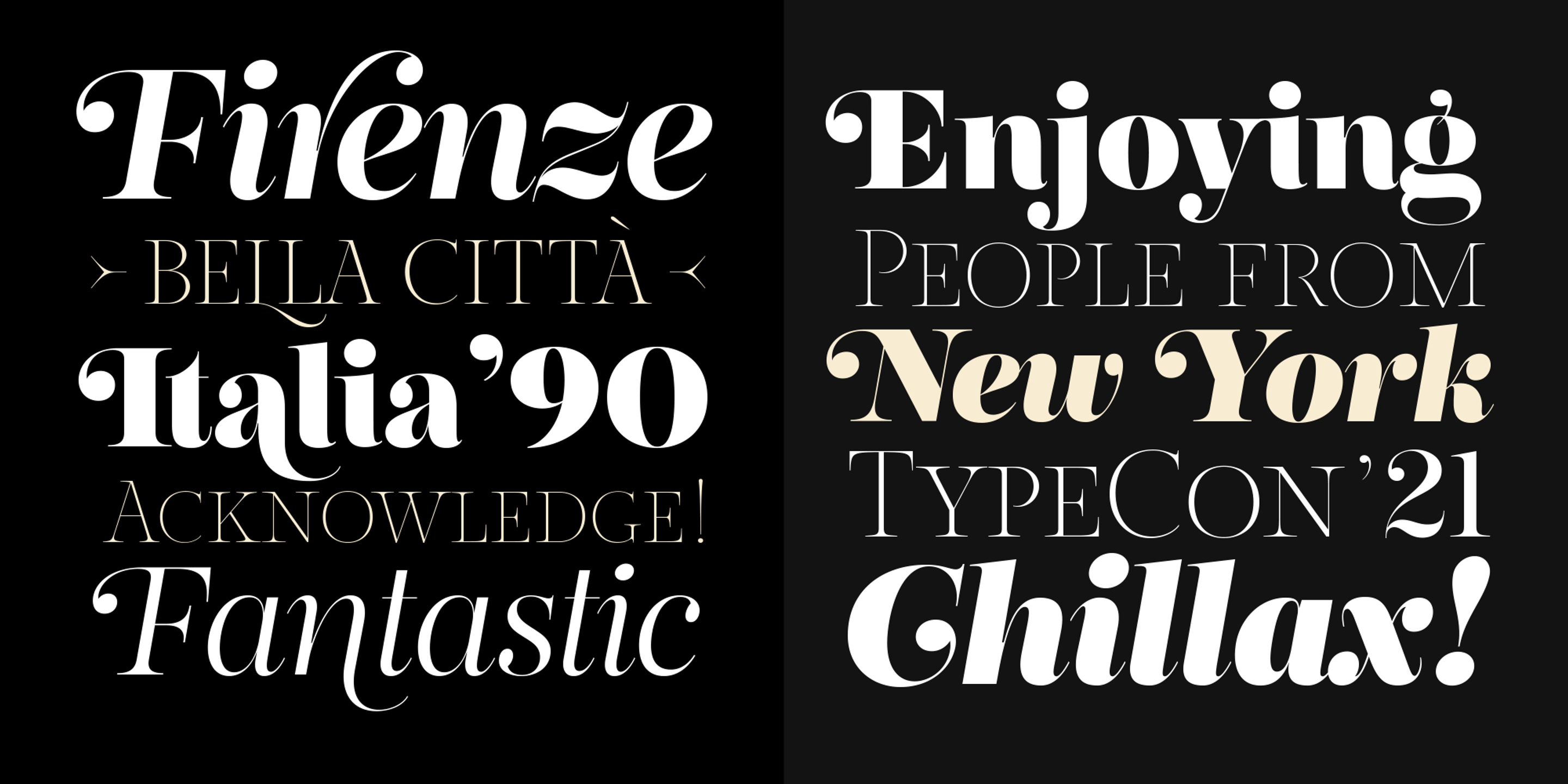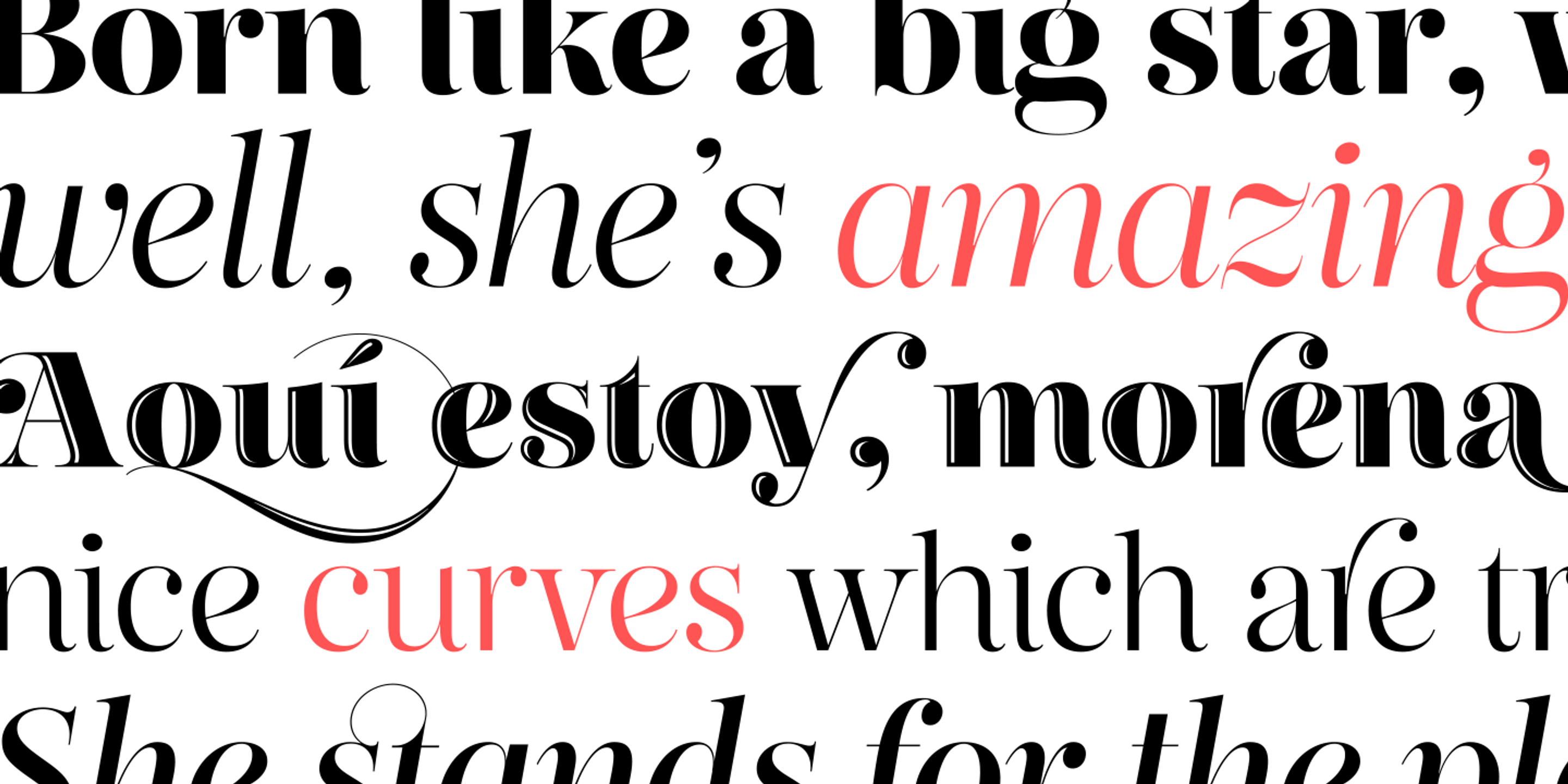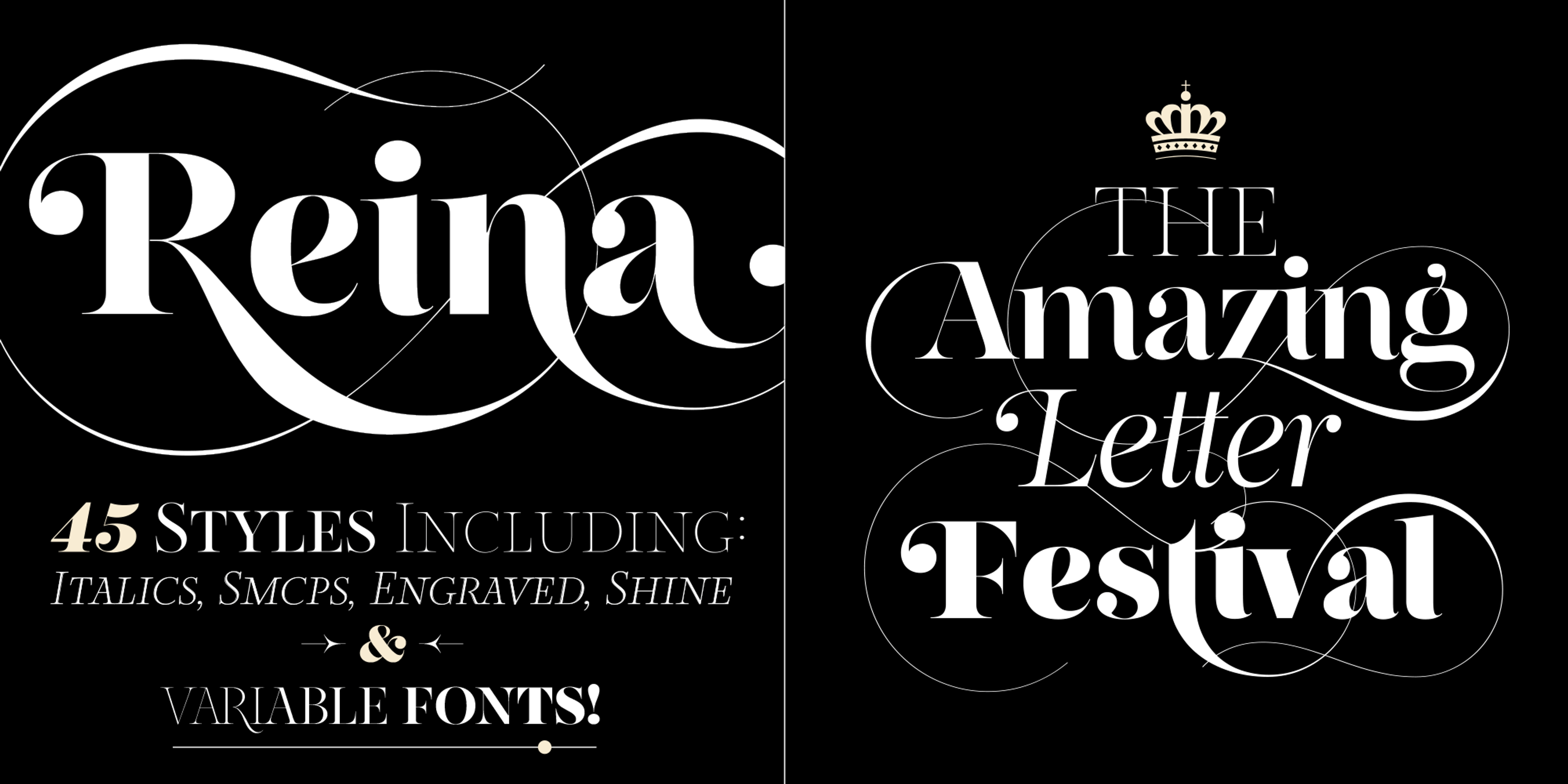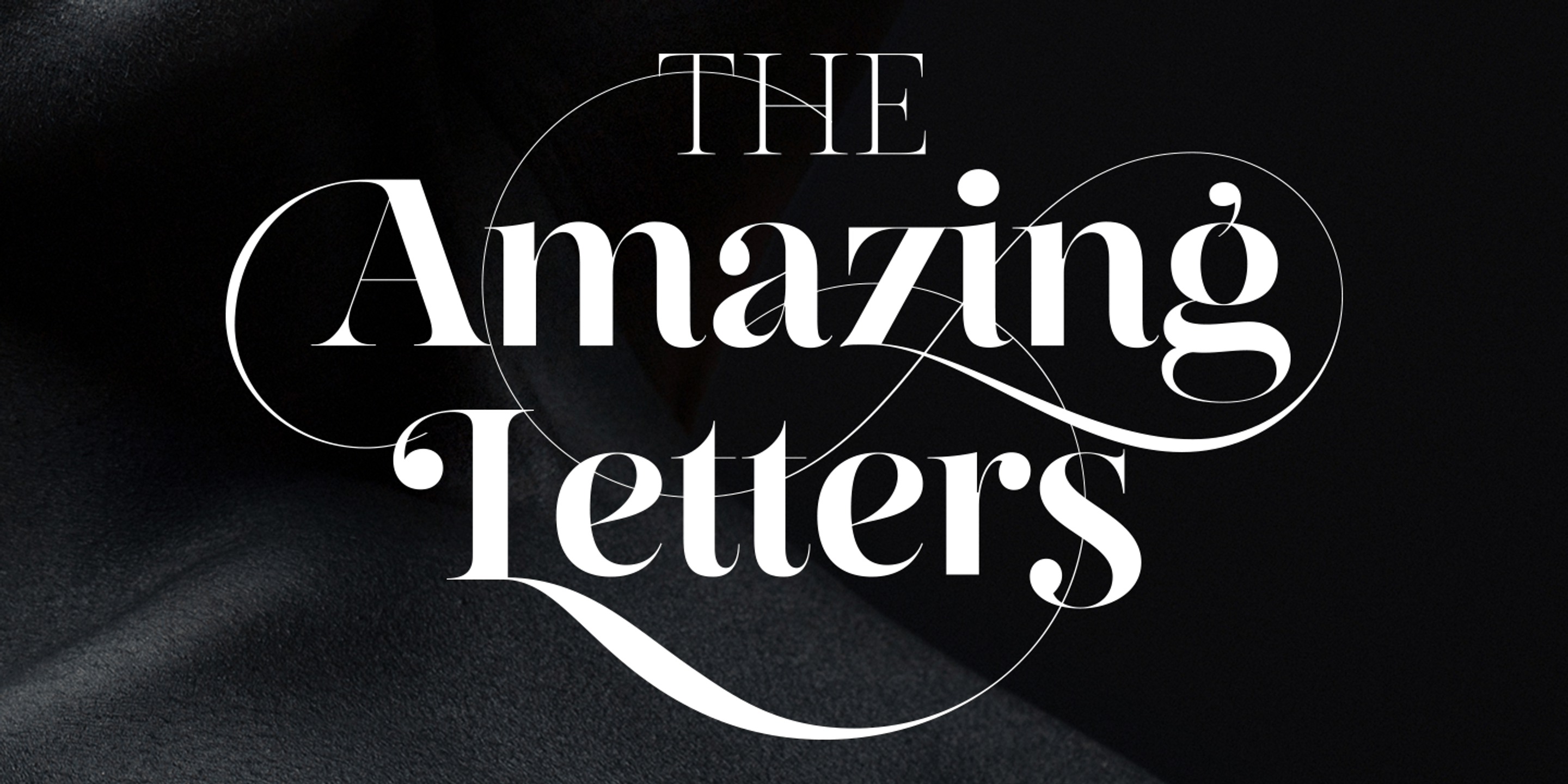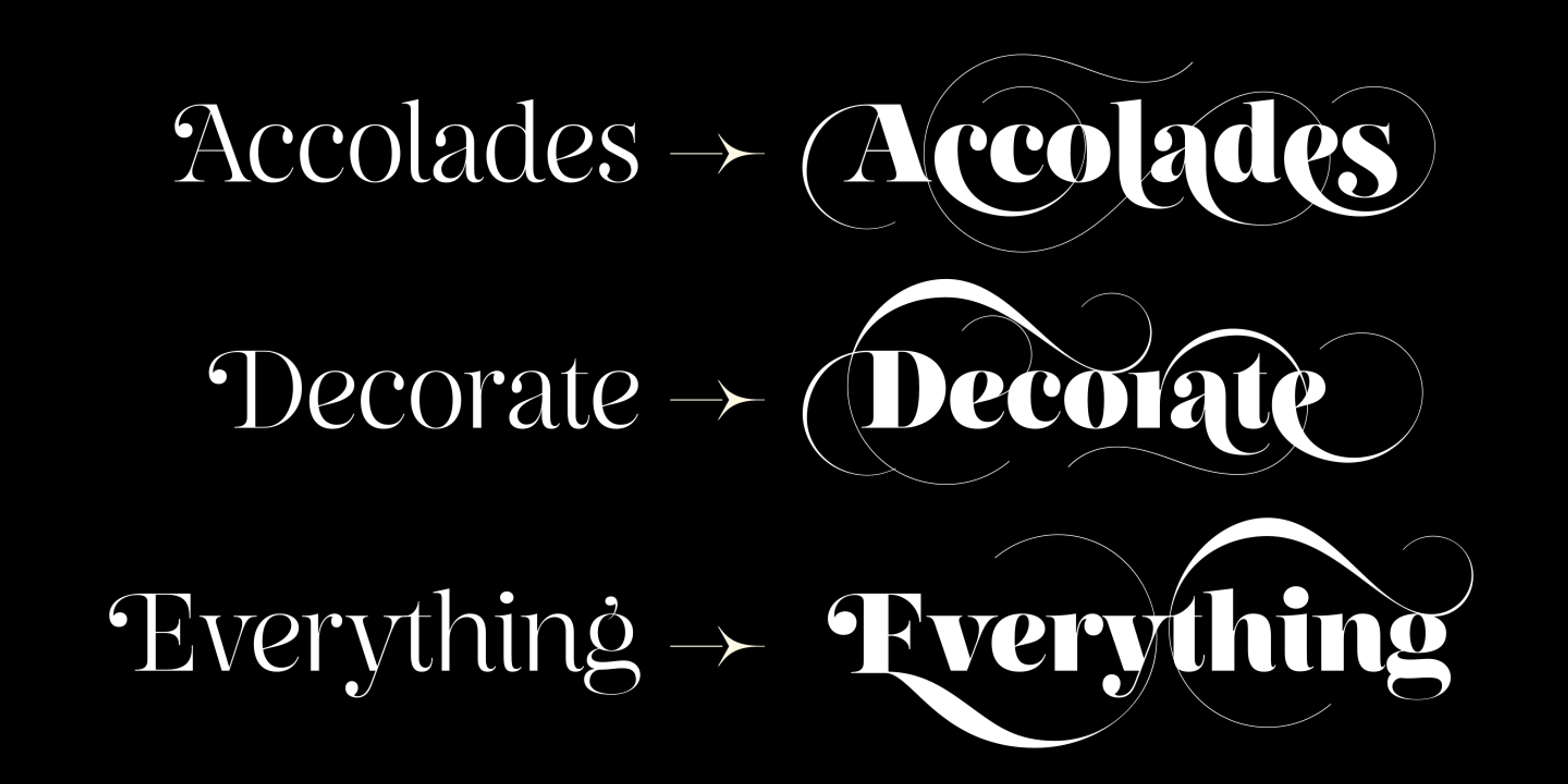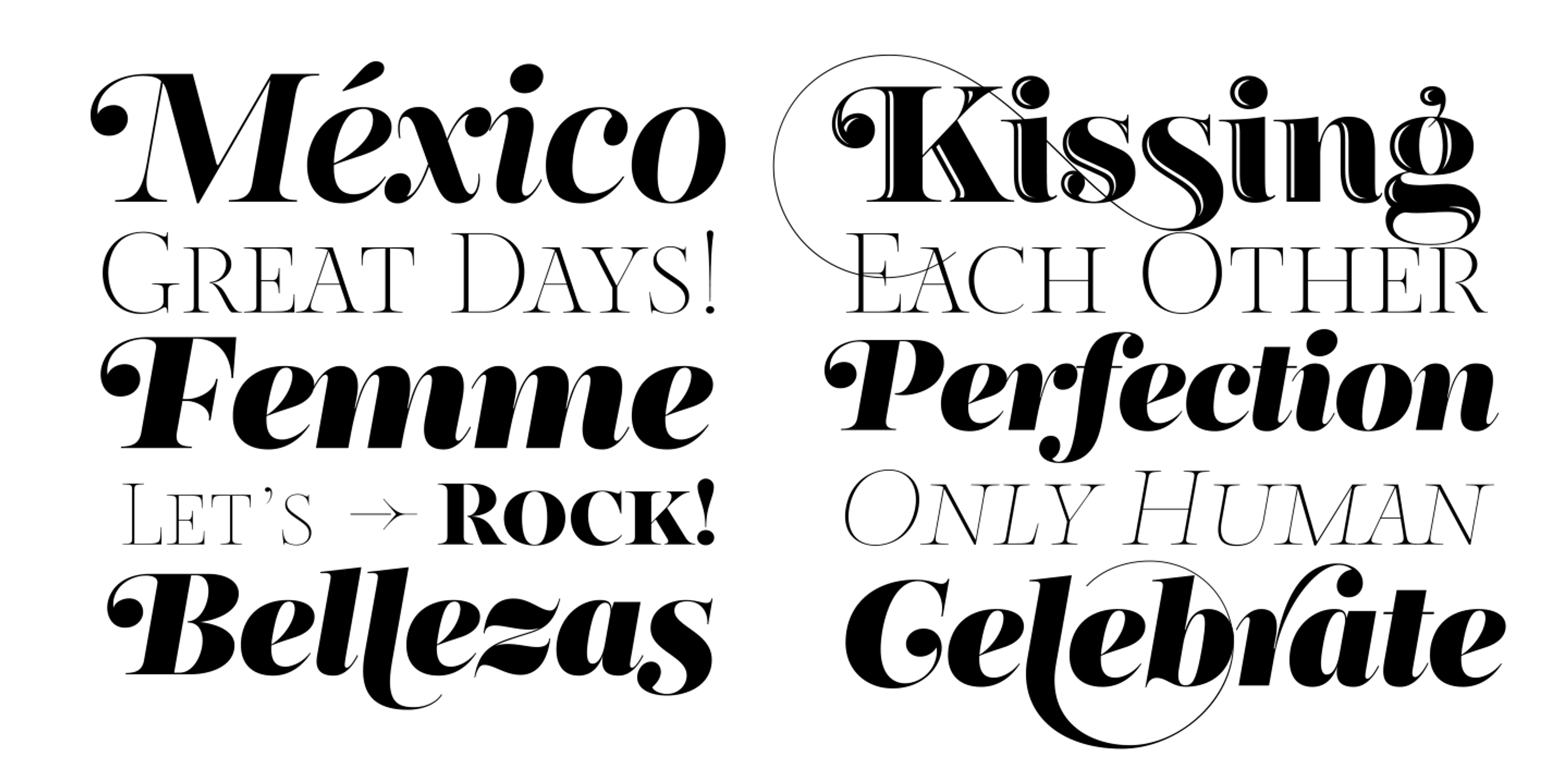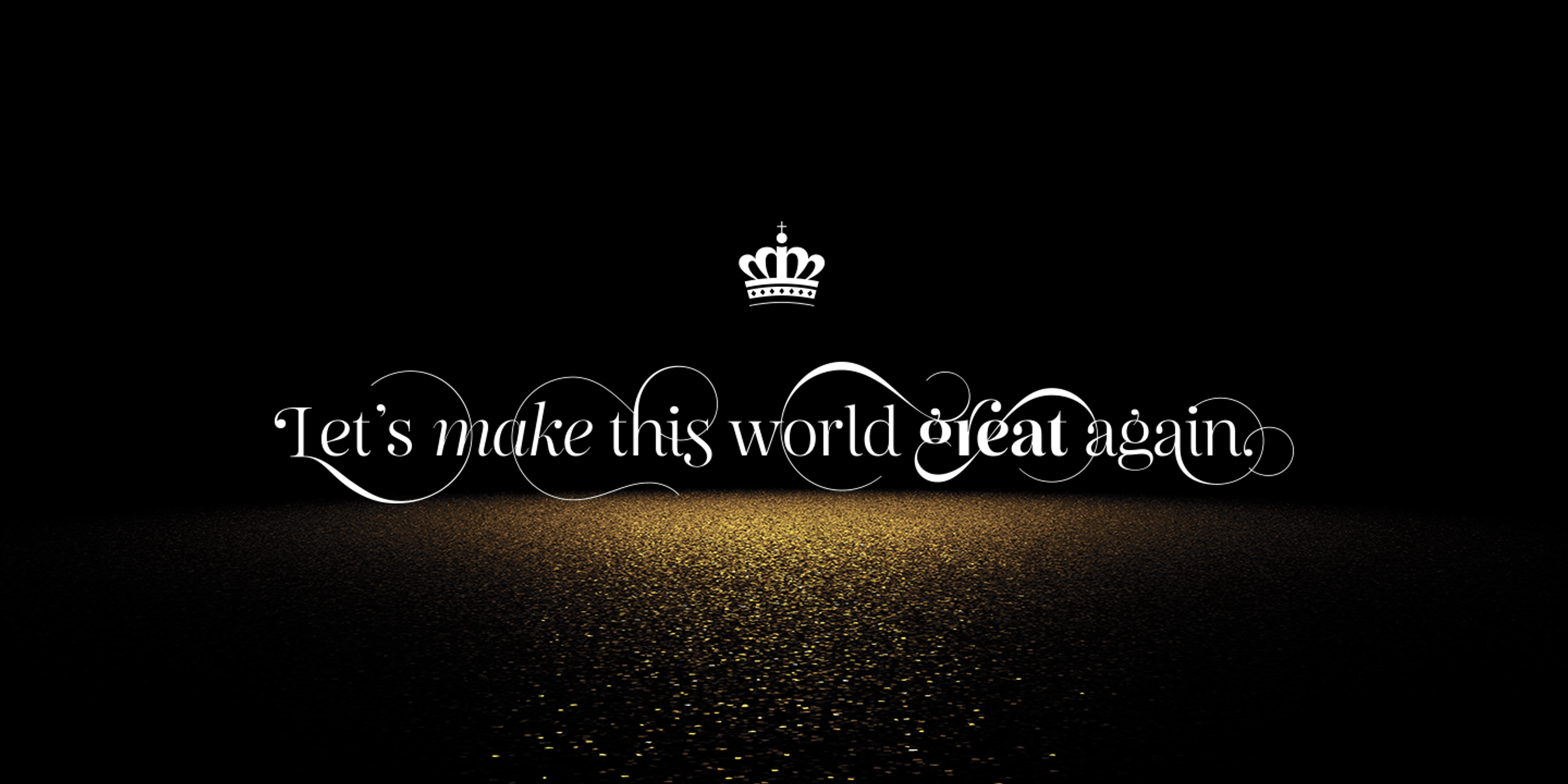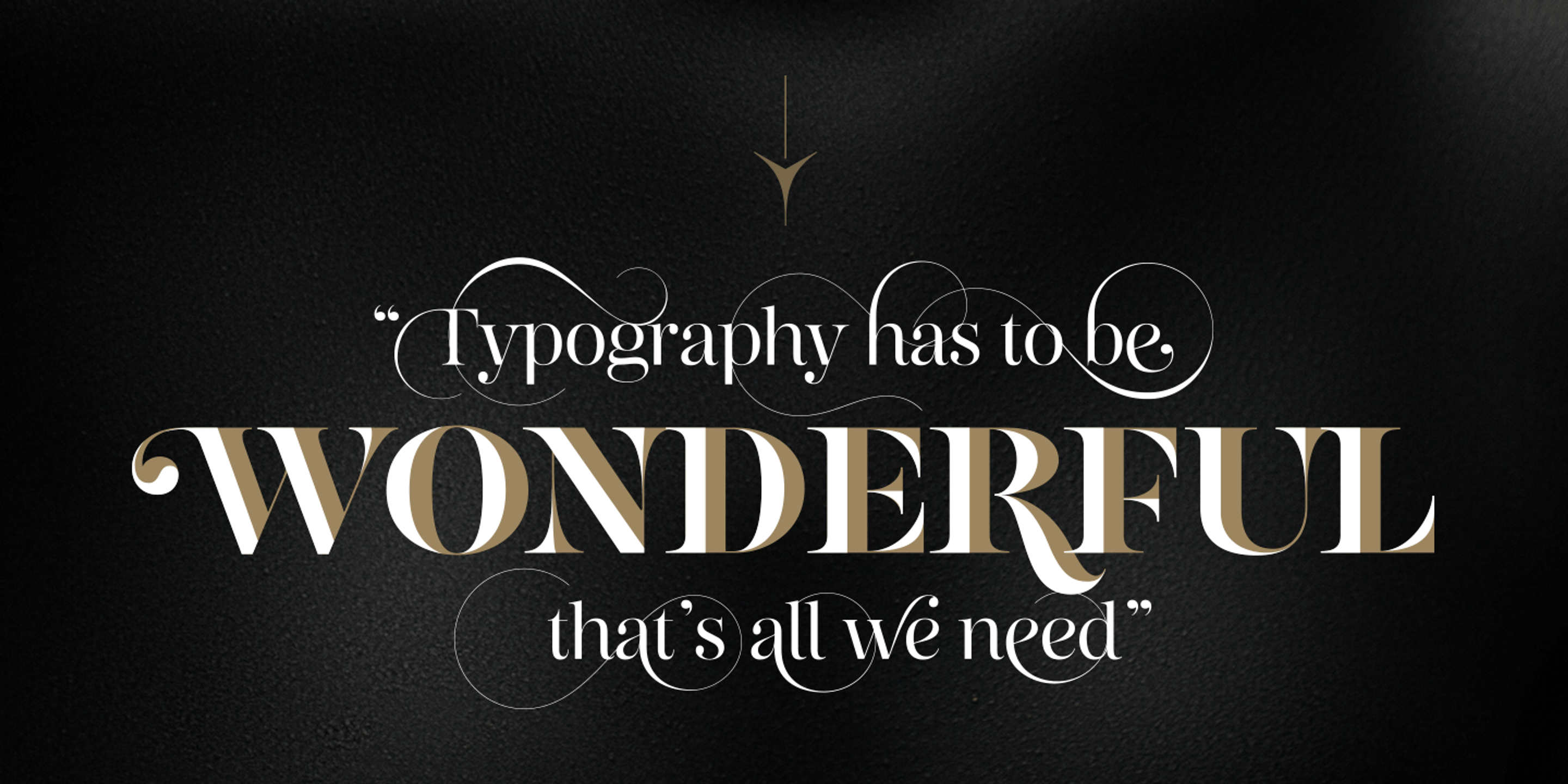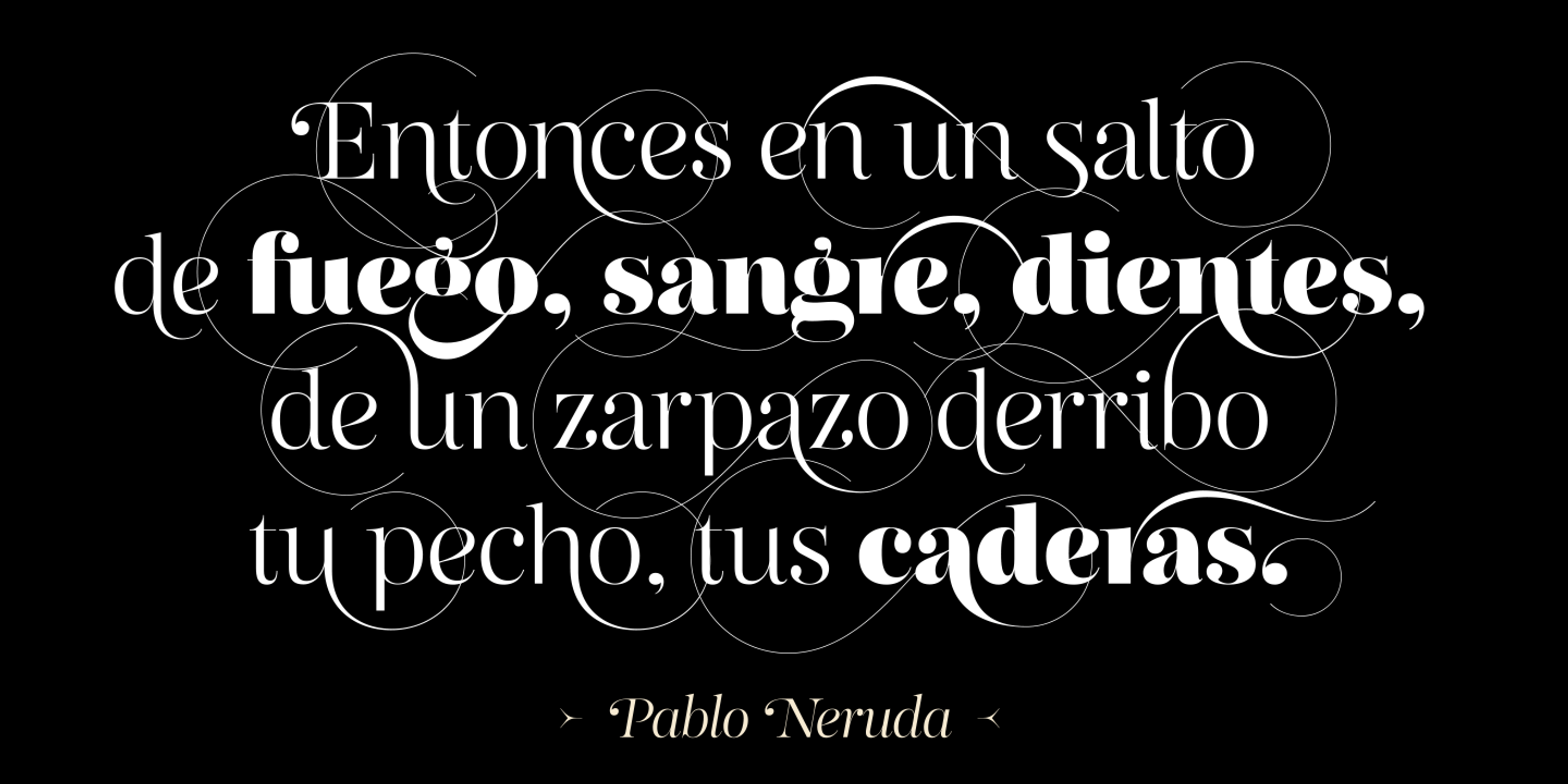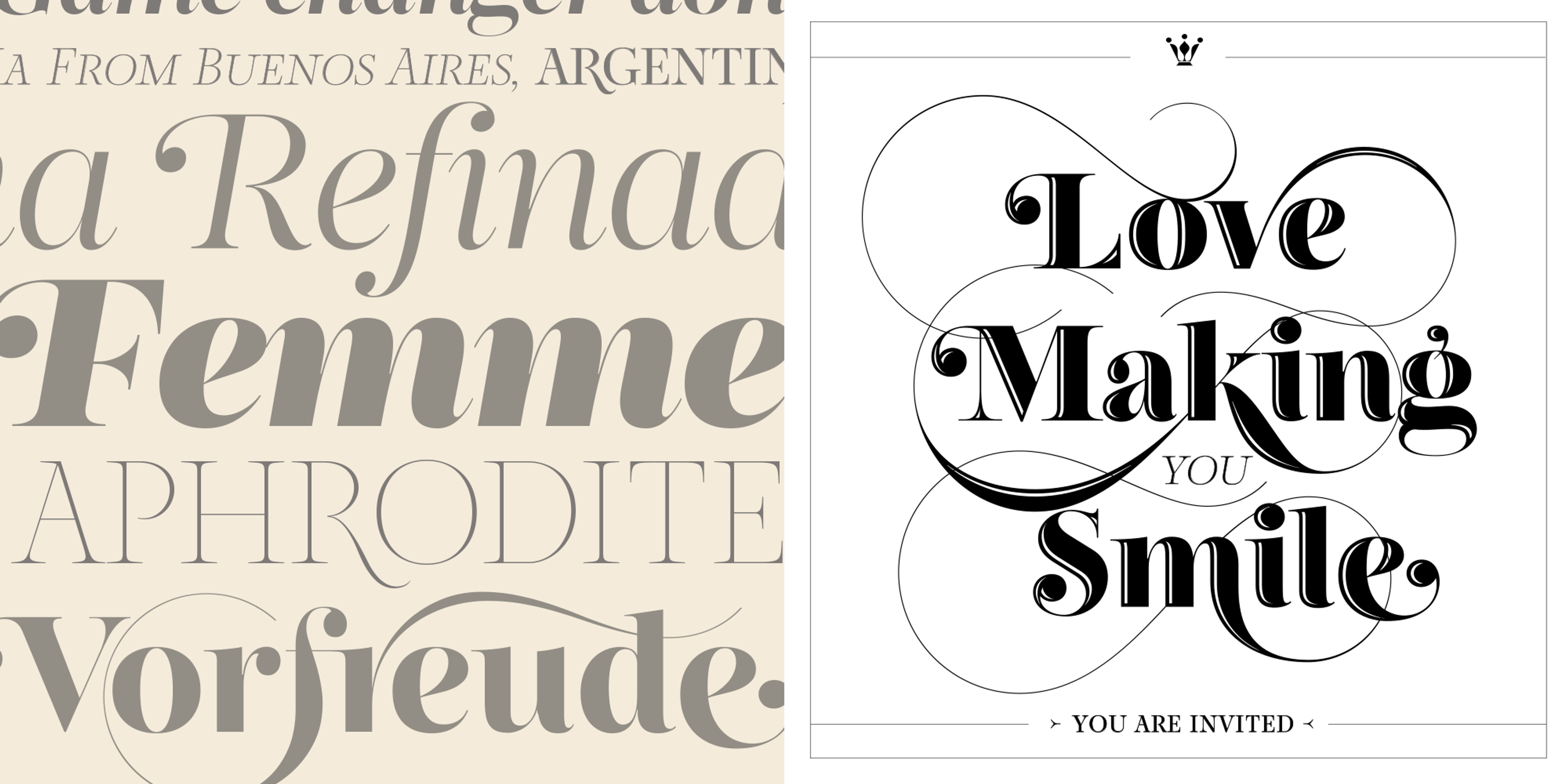
Reina Neue is a poised and expressive serif with a quiet sense of grandeur. Sculpted curves, generous contrast, elegant ball terminals, and abundant swash alternates give it a refined presence. While three optical sizes and an array of weights offer typographic utility. Regal yet approachable, this family adds a touch of drama to book covers, editorial spreads, fashion brands, book covers, and packaging. Reina Neue turns heads softly — proof that beautiful things don’t need to ask for attention.
- Common Ligatures
- Discretionary Ligatures
- Fractions
- Ordinal Numerals
- Stylistic Alternates
- Stylistic Sets
- Superscript
- Swashes